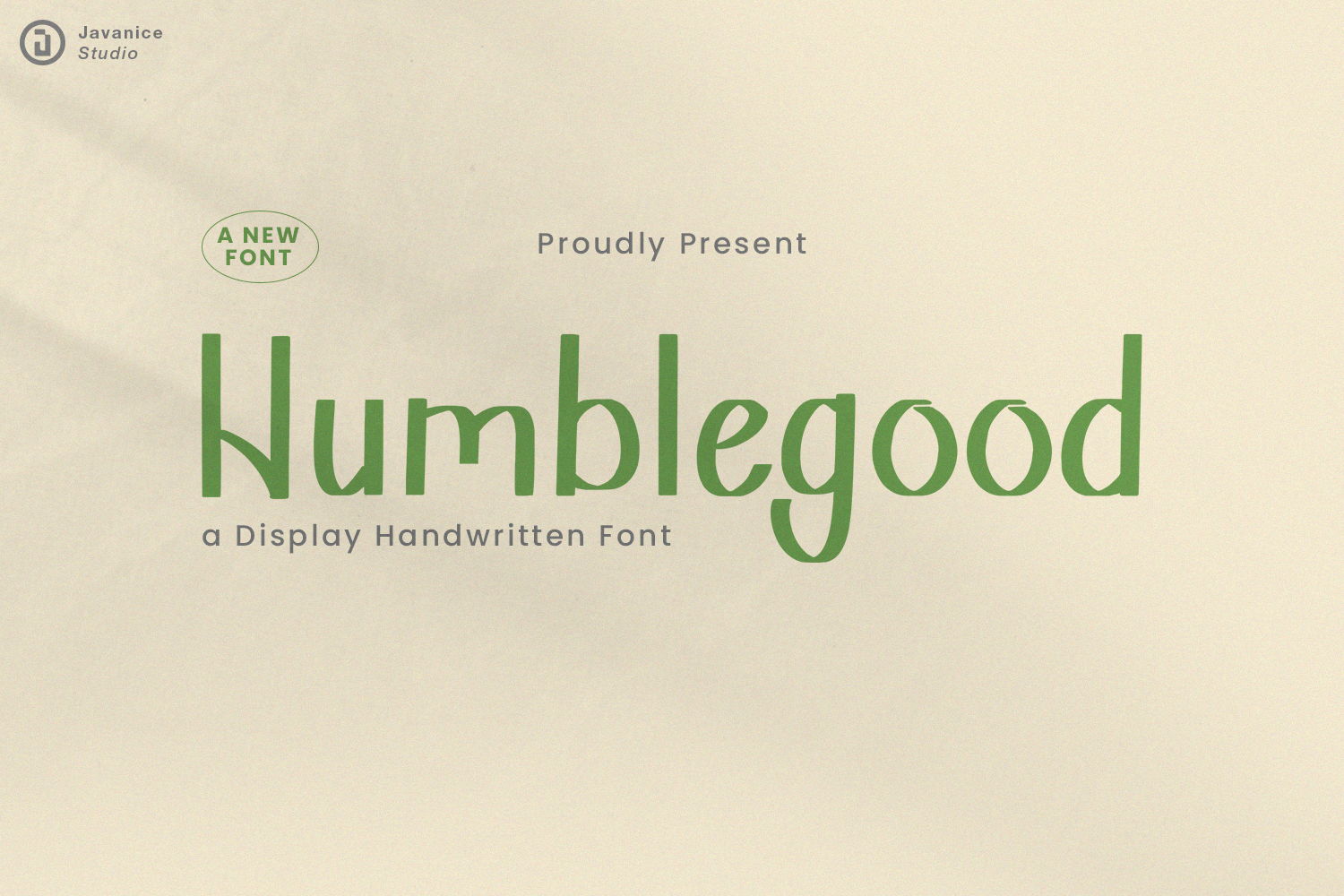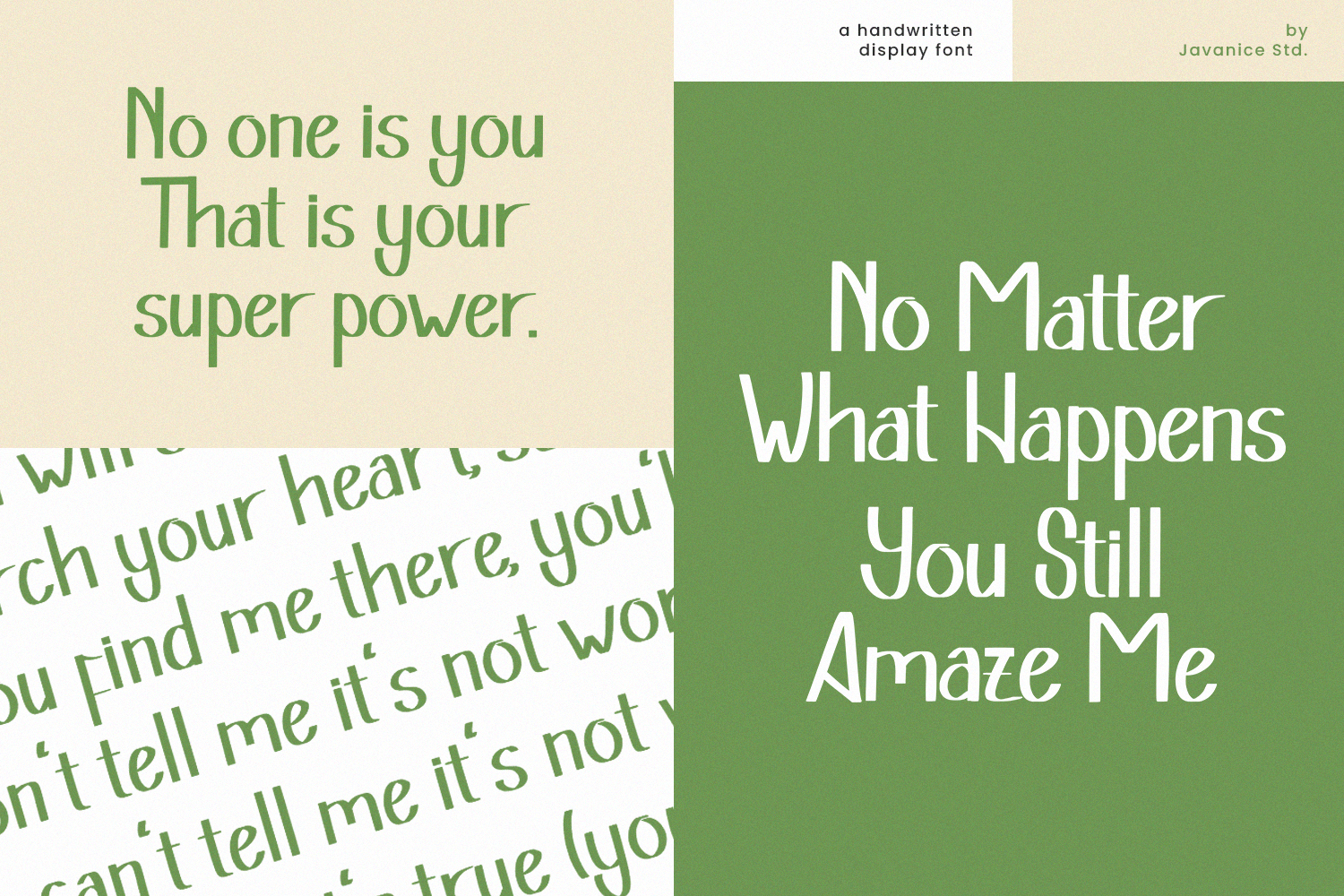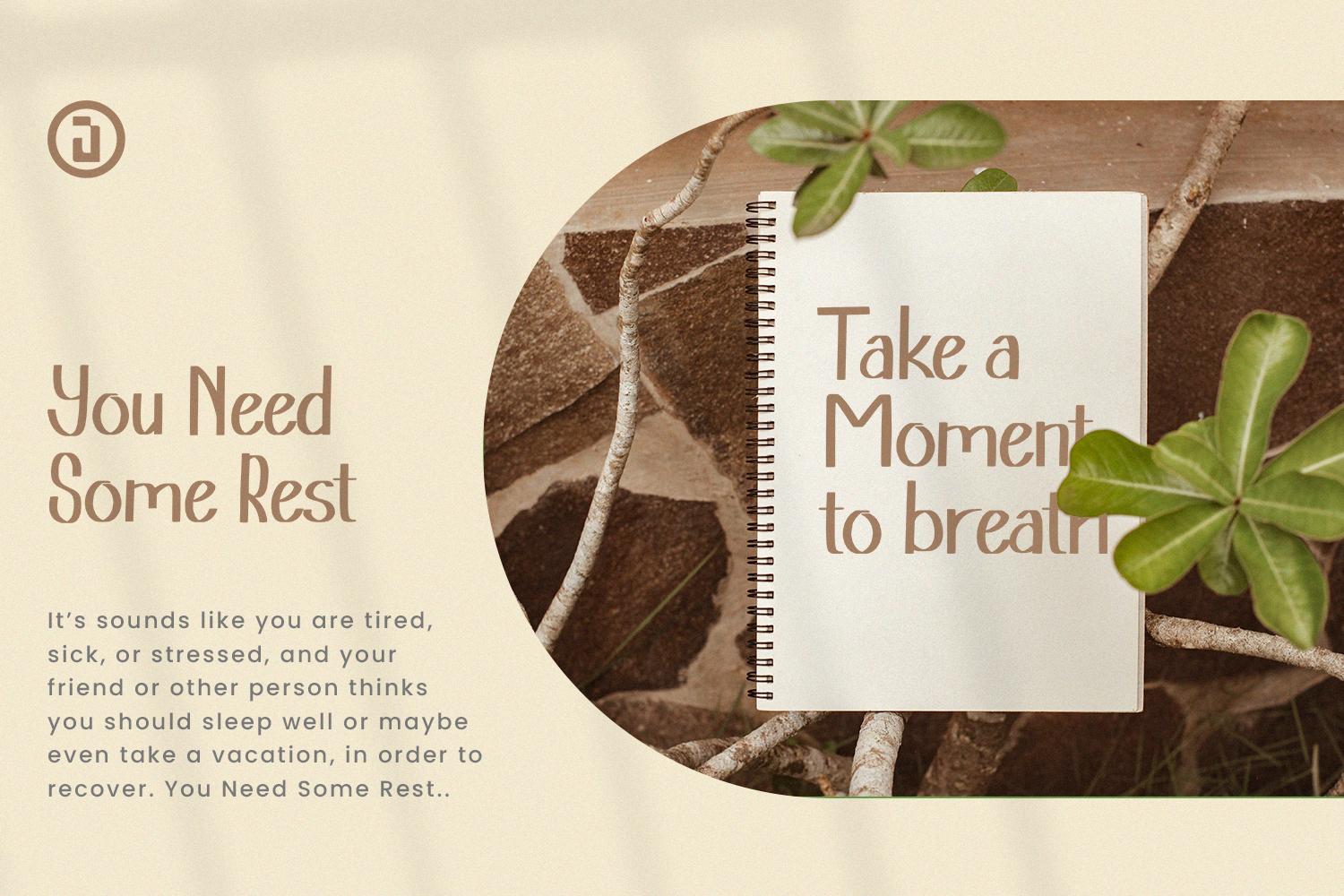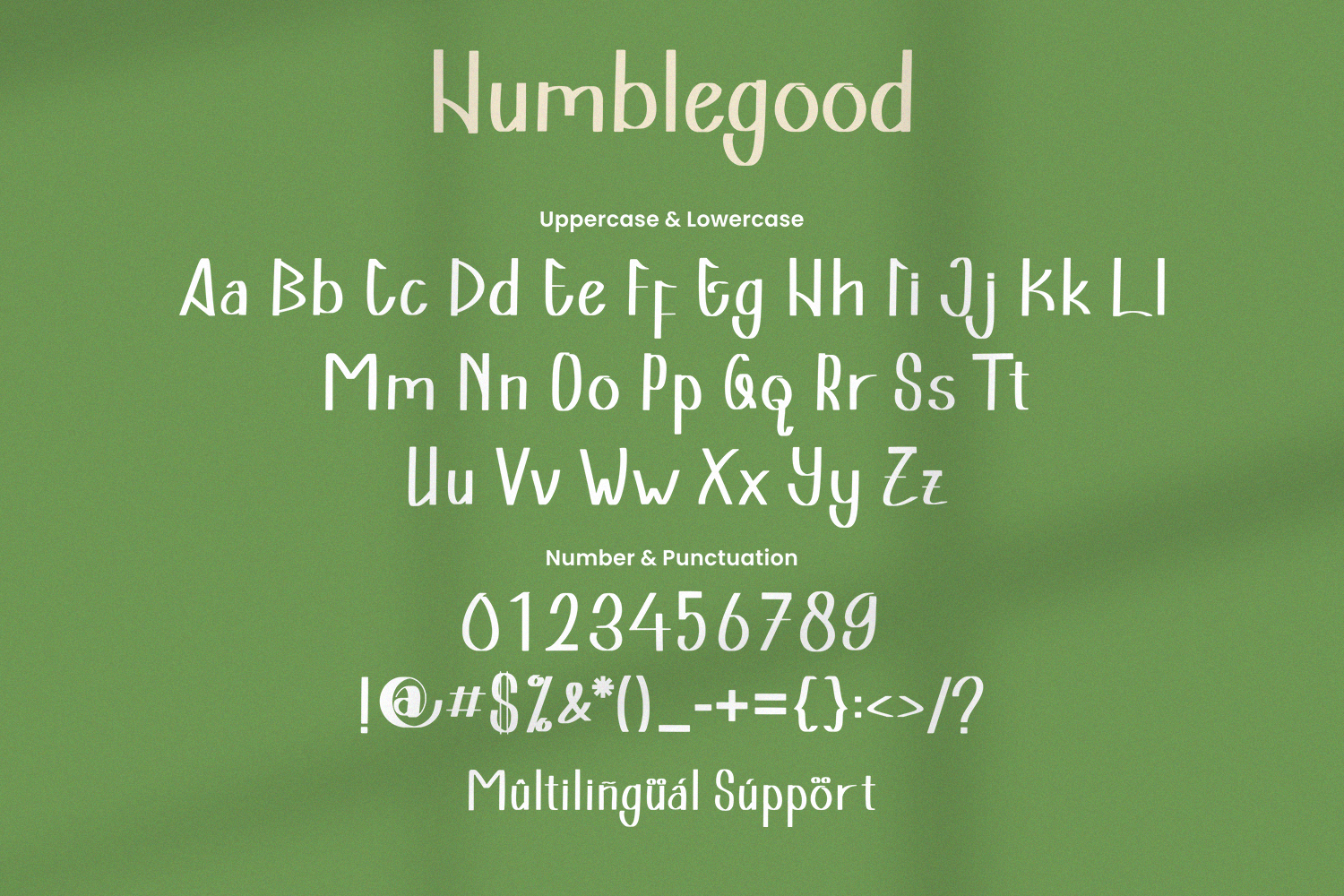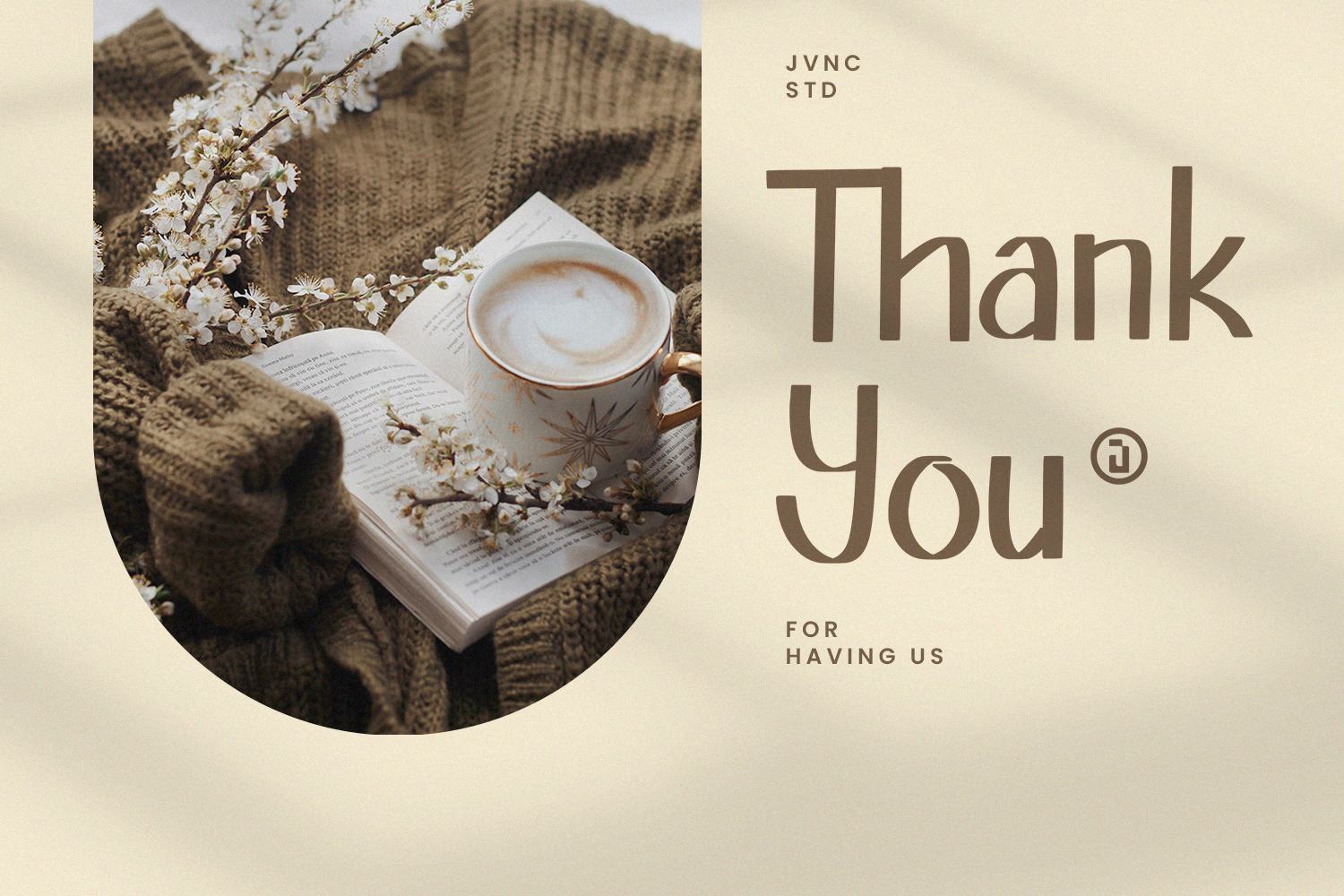
Humblegood Font
Humblegood Handwritten Font
This is a handwritten font. Humblegood is perfect for branding project, apparel, labels, magazines, books, greeting / wedding cards, packaging, fashion, make up, stationery, and any type of advertising purpose or just used to express words above the background.